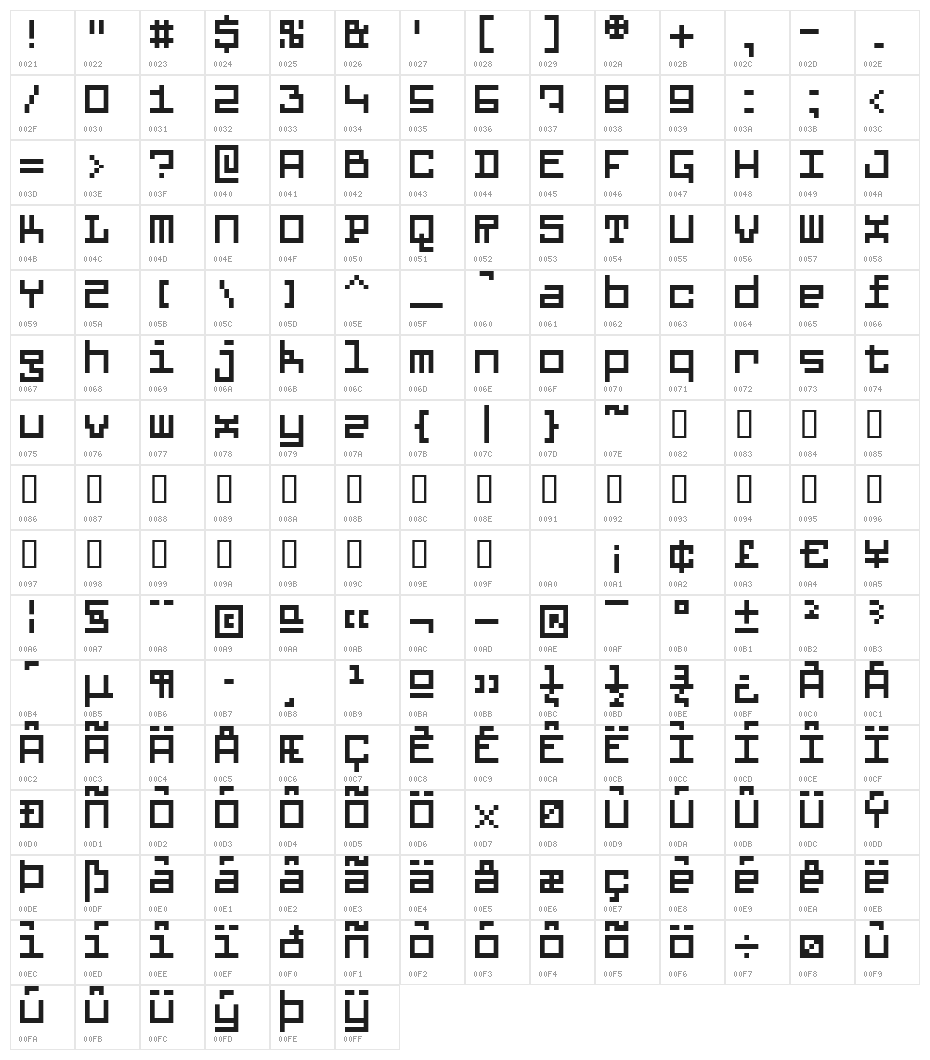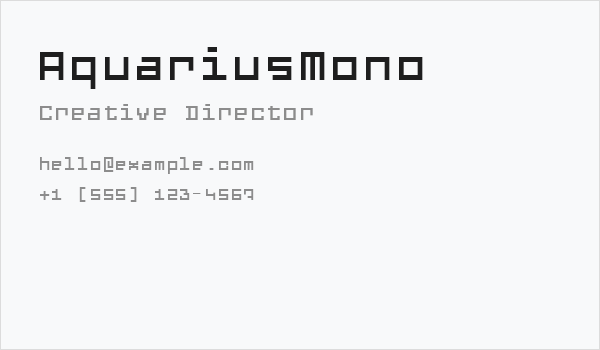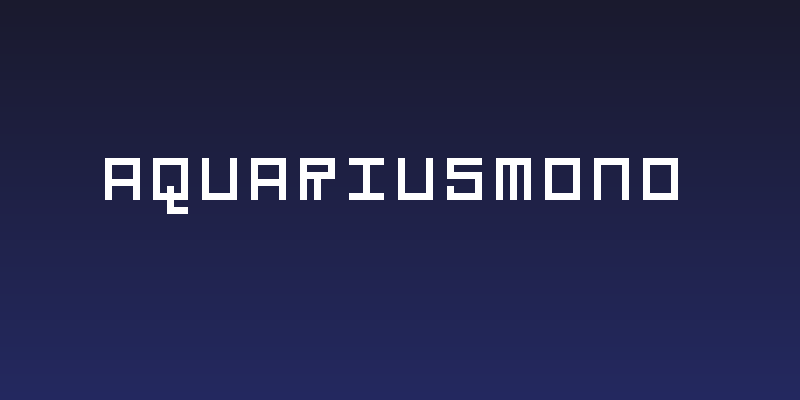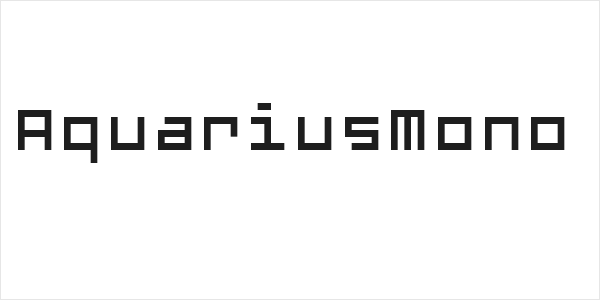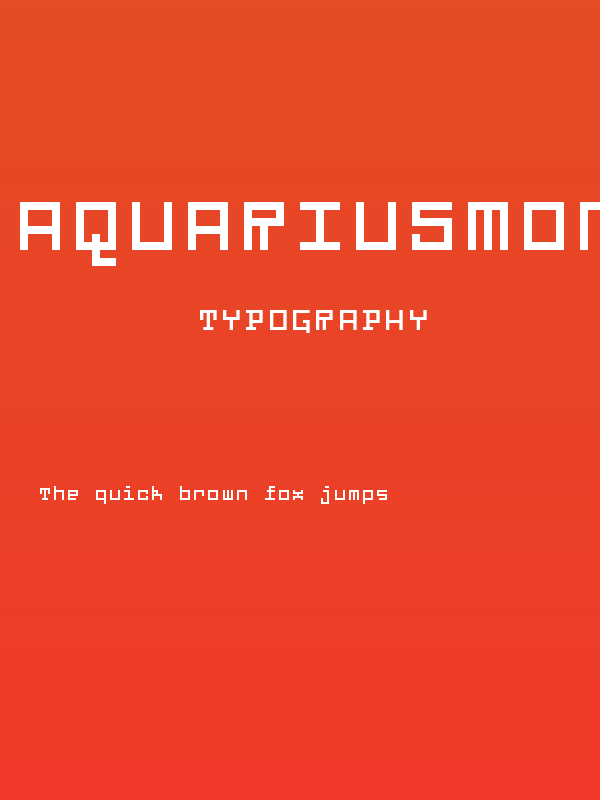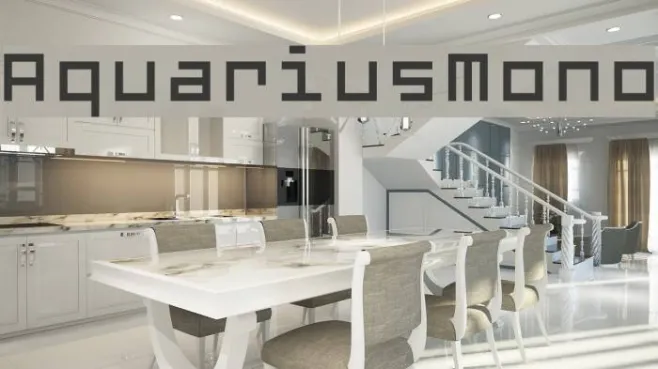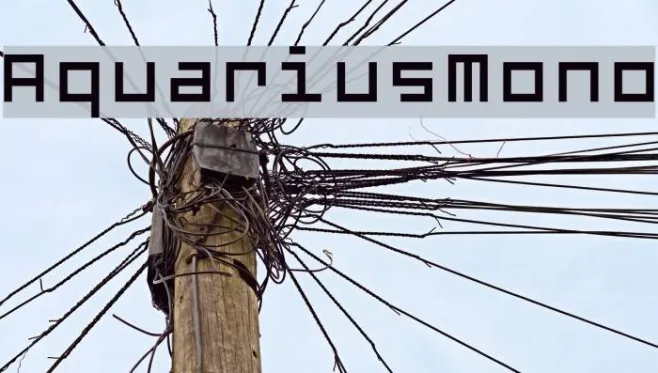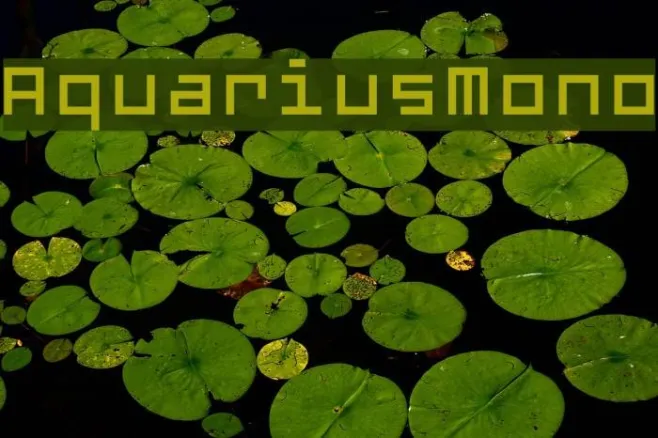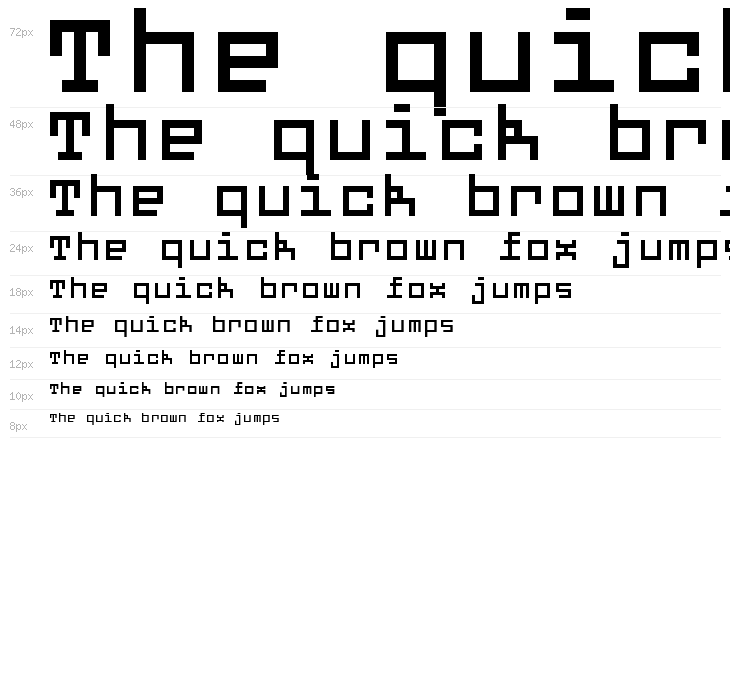
AquariusMono Font
AquariusMono Description
This font features a monospaced design with a distinctly digital and retro aesthetic. Each character is uniformly spaced, contributing to a clean and organized appearance. The geometric shapes and sharp angles give it a technical feel, reminiscent of early computer displays or classic arcade games. The uppercase and lowercase letters maintain a consistent height, enhancing readability. Numbers and special characters are crafted with the same precision, ensuring uniformity across all glyphs. The overall design is straightforward yet striking, making it suitable for projects that require a modern yet nostalgic touch.
| Use Case | Coding, Digital displays, Retro designs |
| Proposed Projects | Ideal for coding environments, retro-themed designs, digital art projects, and technical documentation. |